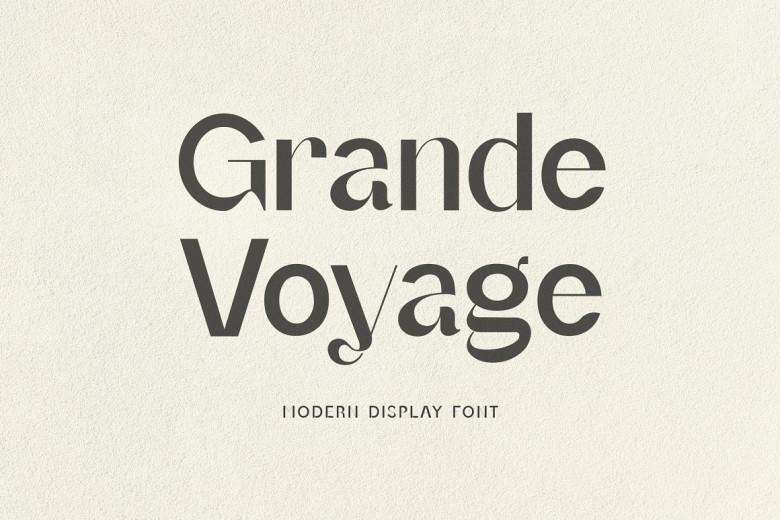
Grand Voyage Font
Grand Voyage is a contemporary display font which has been designed to look classic, dramatic and modern. This font is ideally suited for use in all sorts of projects such as signature, stationery, logo, wedding invitations, typography quotes on the internet as headlines or for blogs, magazines and book covers where headings are often large-in relation to body text; website headers clothing branding packaging design (including perfume bottles), and so forth! In addition fashion-related editorial design shows both male and female qualities.
Grand Voyage Display Font